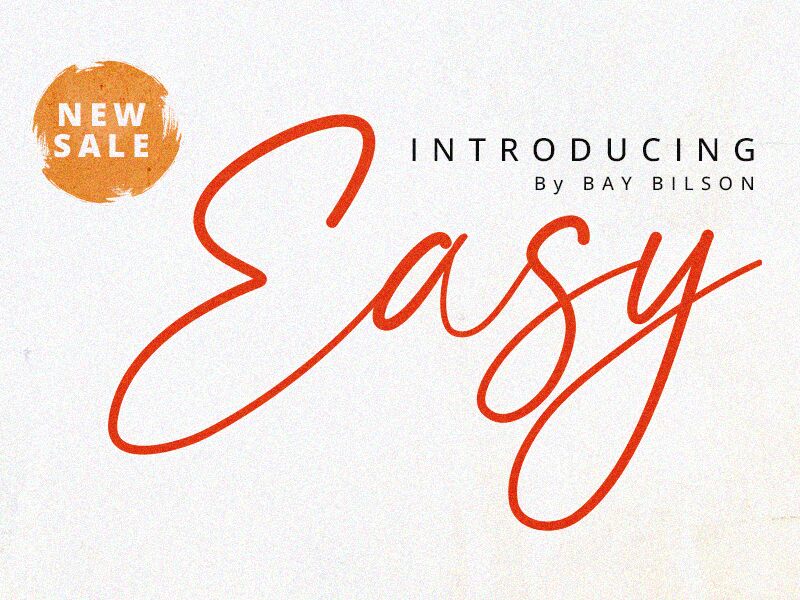
Easy font, designed by Baybilson, is a free handwritten font that embodies casual elegance with a modern flair. Its light strokes and flowing curves give it a graceful simplicity and ease of readability. With smooth lines and natural gestures, it can easily be added to any design that seeks a personal touch stemming from an authentic yet artistic font.
Leverage Easy in social media quotes, branding projects, printed designs including business cards and flyers, invitations for special occasions like weddings and graduations as well as covers for magazines and notebooks. It can also be used in applications or other UX/UI designs like websites.